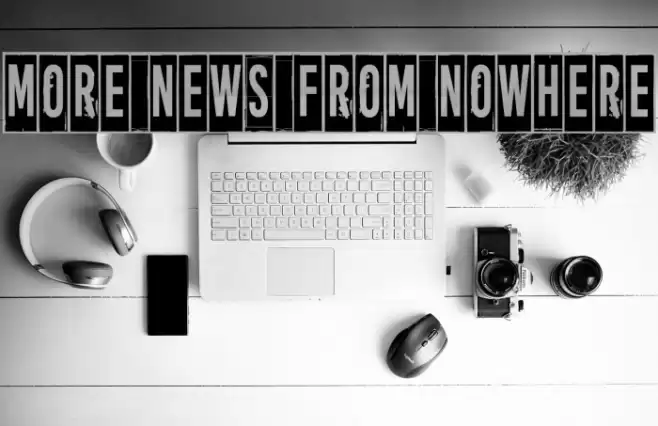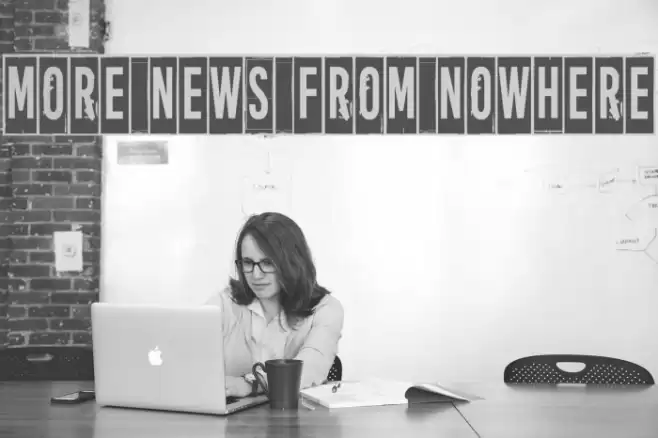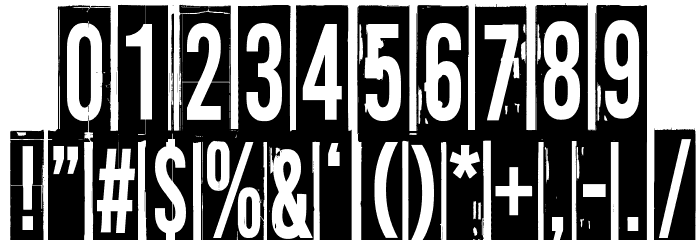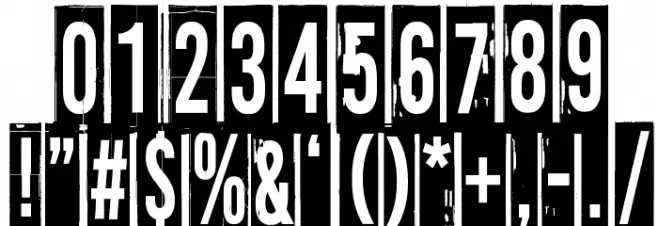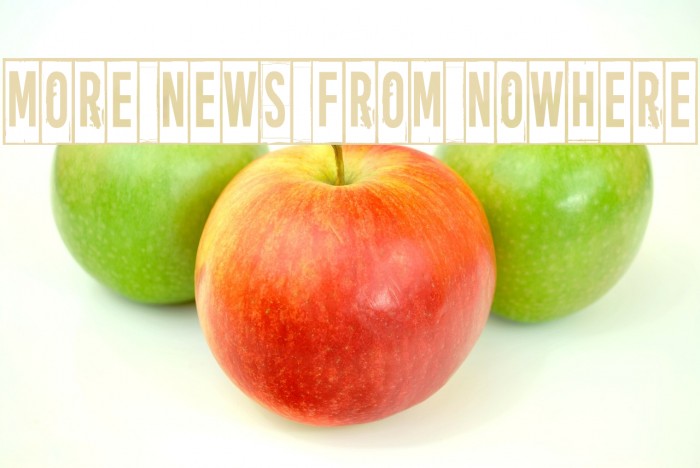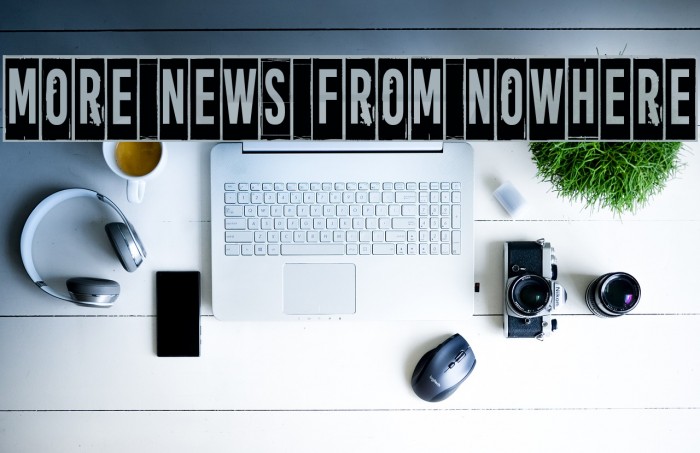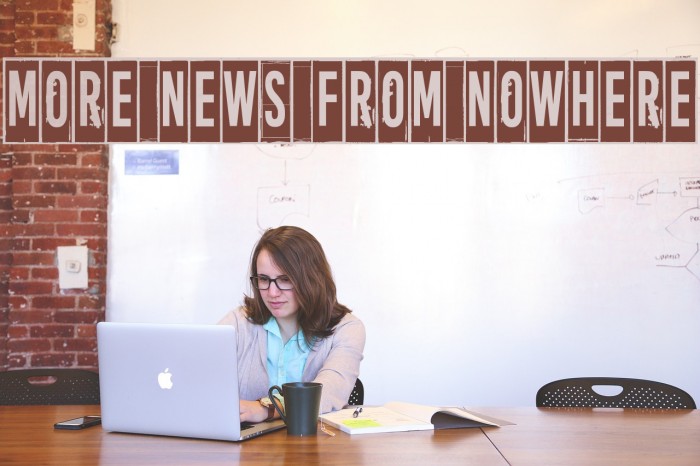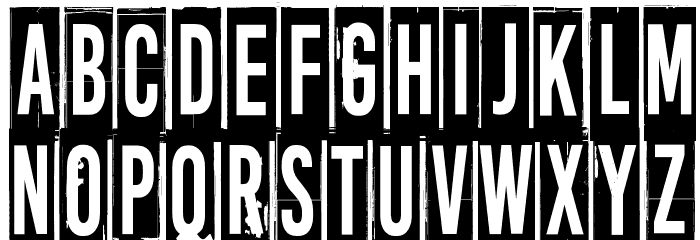
More news from nowhere Font
More news from nowhere Description
This font features a bold, distressed style with a strong, impactful presence. Each character is enclosed in a rectangular box, giving it a stencil-like appearance. The letters are uppercase, with a uniform height and width, creating a sense of balance and order. The distressed texture adds a rugged, vintage feel, making it suitable for designs that require a bold statement. The numbers and special characters follow the same design, maintaining consistency throughout the font. The overall look is both modern and industrial, perfect for projects that need a touch of edginess.
A bold, distressed stencil-style font with a vintage, industrial feel from Uncategorized fonts.
- Proposed Projects: Ideal for posters, album covers, branding, and any design needing a bold, edgy look.
- Overall Style: Vintage, Industrial